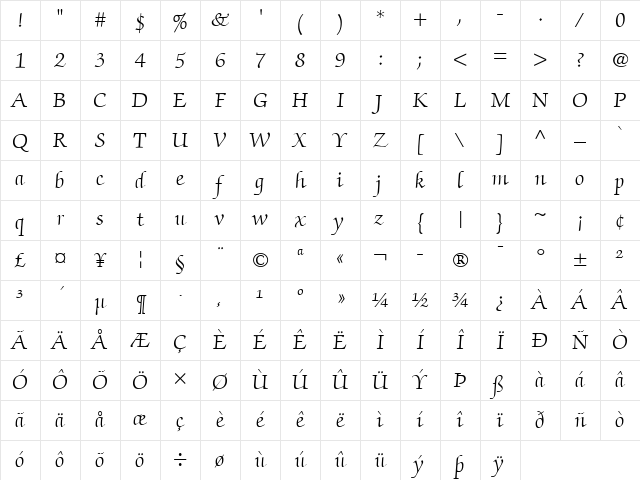
ZapfChancery LT Light Regular
Design Context for ZapfChancery LT Light
ZapfChancery LT Light is a composed and adaptable typeface that performs quietly and consistently across a wide range of design contexts. Its slender proportions lend an understated elegance to any composition.